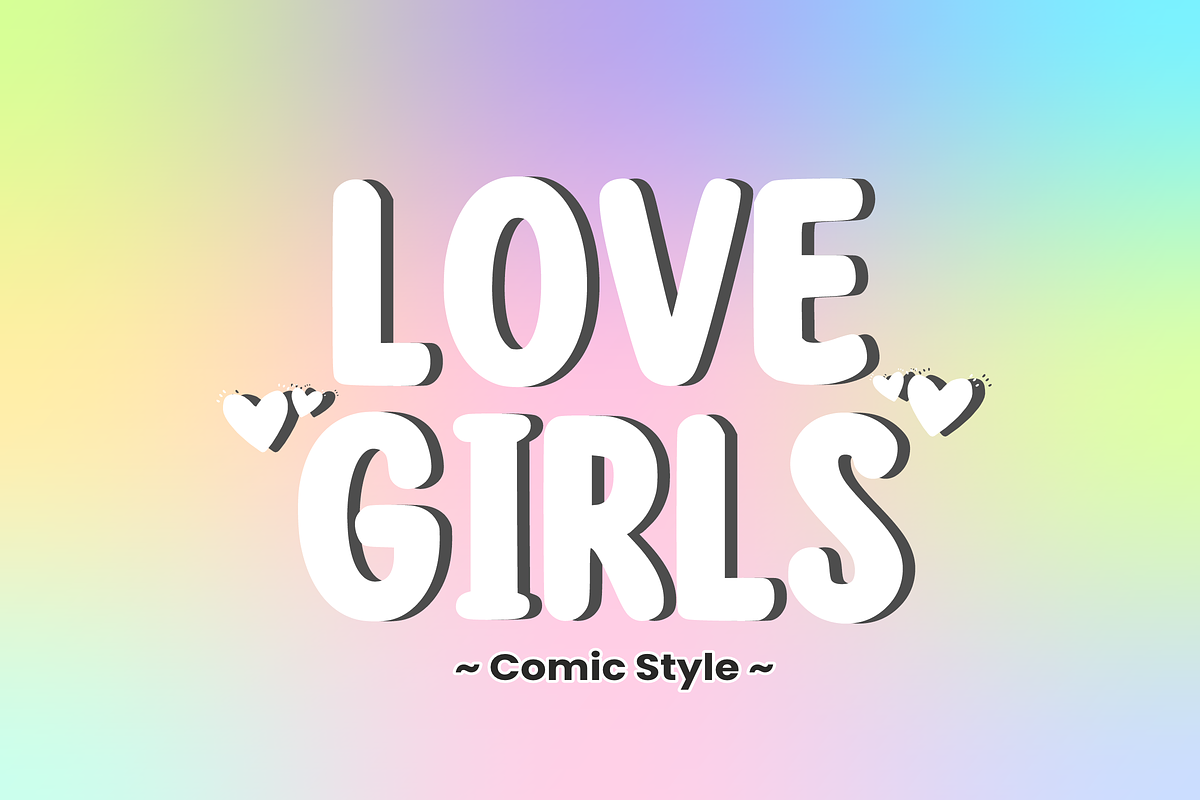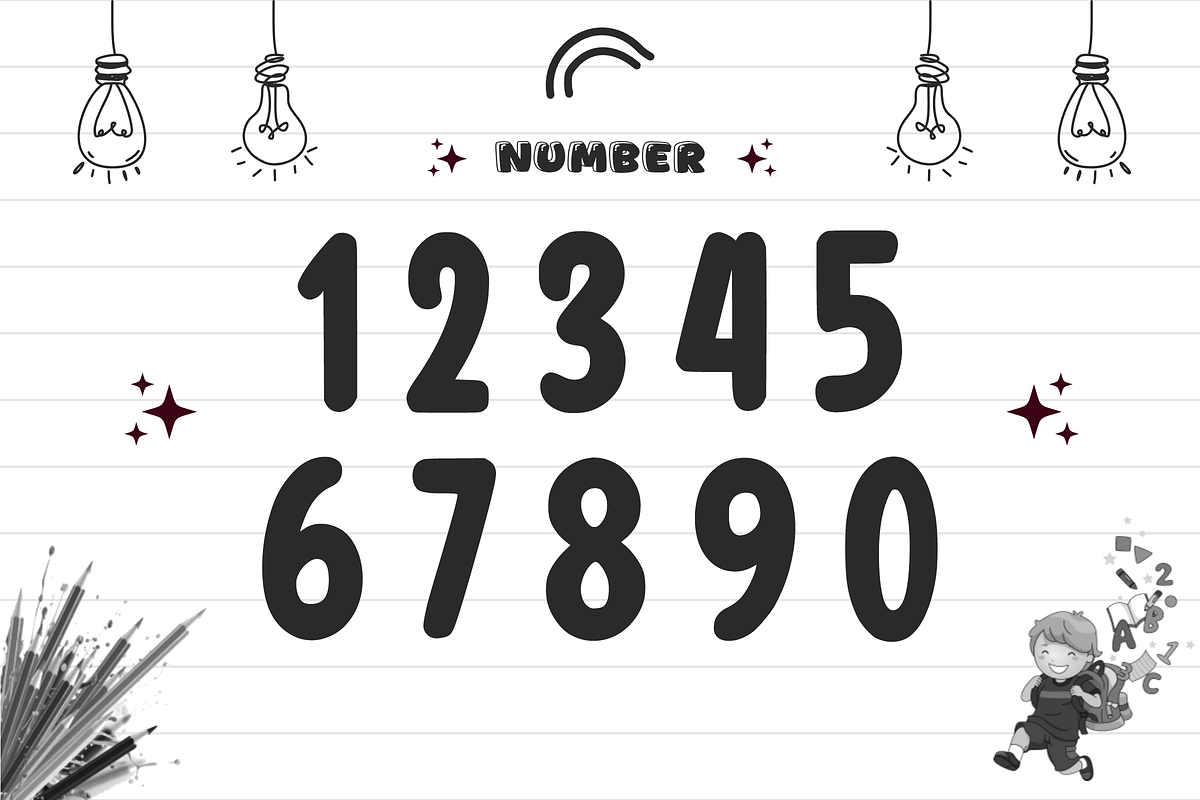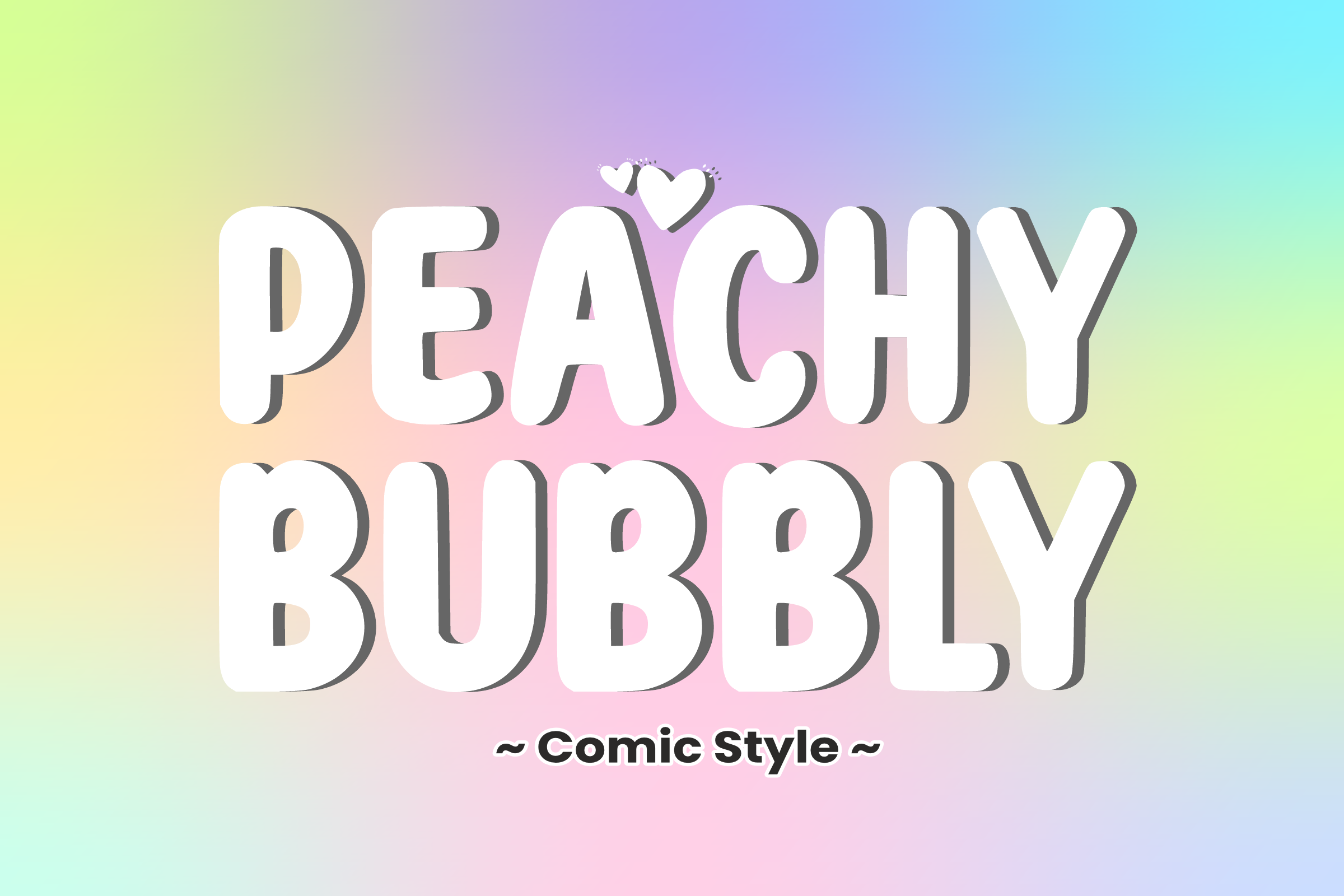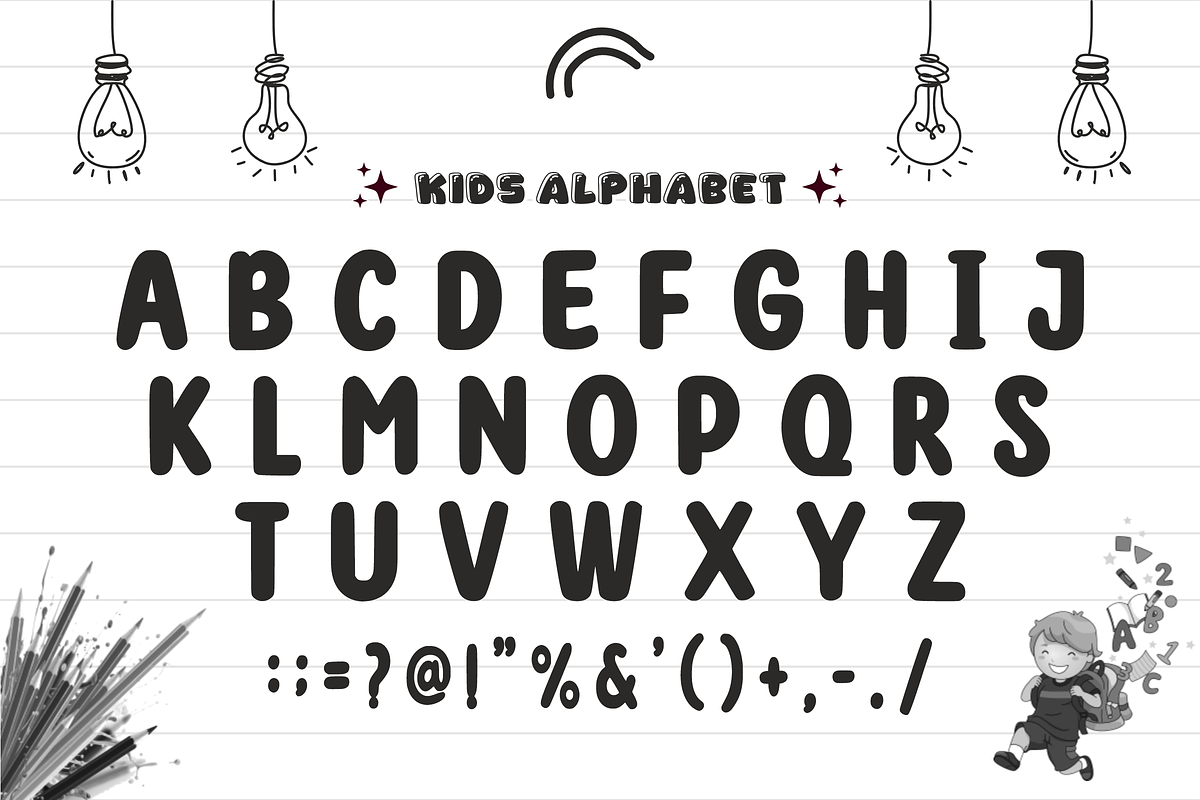
Peachy Bubbly - Display Font
🍑 Peachy Bubbly – Sweet & Playful Bubble Display Font ✨ Add a pop of sweetness to your creative projects! 🍬
Peachy Bubbly is a soft, chunky, and irresistibly cute bubble font designed to bring a joyful and modern vibe to your work. With its smooth, rounded edges and "squishy" aesthetic, this font captures the trendy Y2K and Gen-Z aesthetic perfectly. It’s the ultimate choice for designers who want their headlines to look friendly, fun, and full of personality.
Whether you're creating vibrant social media graphics, trendy streetwear, or adorable stickers, Peachy Bubbly makes every word look like a sweet treat!
🌟 Features: Soft Bubble Aesthetic: Extra bold, rounded characters for a high-impact "pop" look.
Complete Essentials: Includes All Uppercase Letters, Numbers, and Simple Symbols.
Trend-Ready: Perfectly suited for aesthetic branding and modern digital content.
🎨 Perfect For: 💖 Aesthetic Social Media Quotes & Reels
👕 Trendy T-shirt & Streetwear Graphics
🍭 Candy, Bakery, & Boutique Branding
📱 YouTube Thumbnails & Logo Design
🎨 Stickers, Planners, and DIY Crafts
🎁 Greeting Cards & Fun Event Invitations